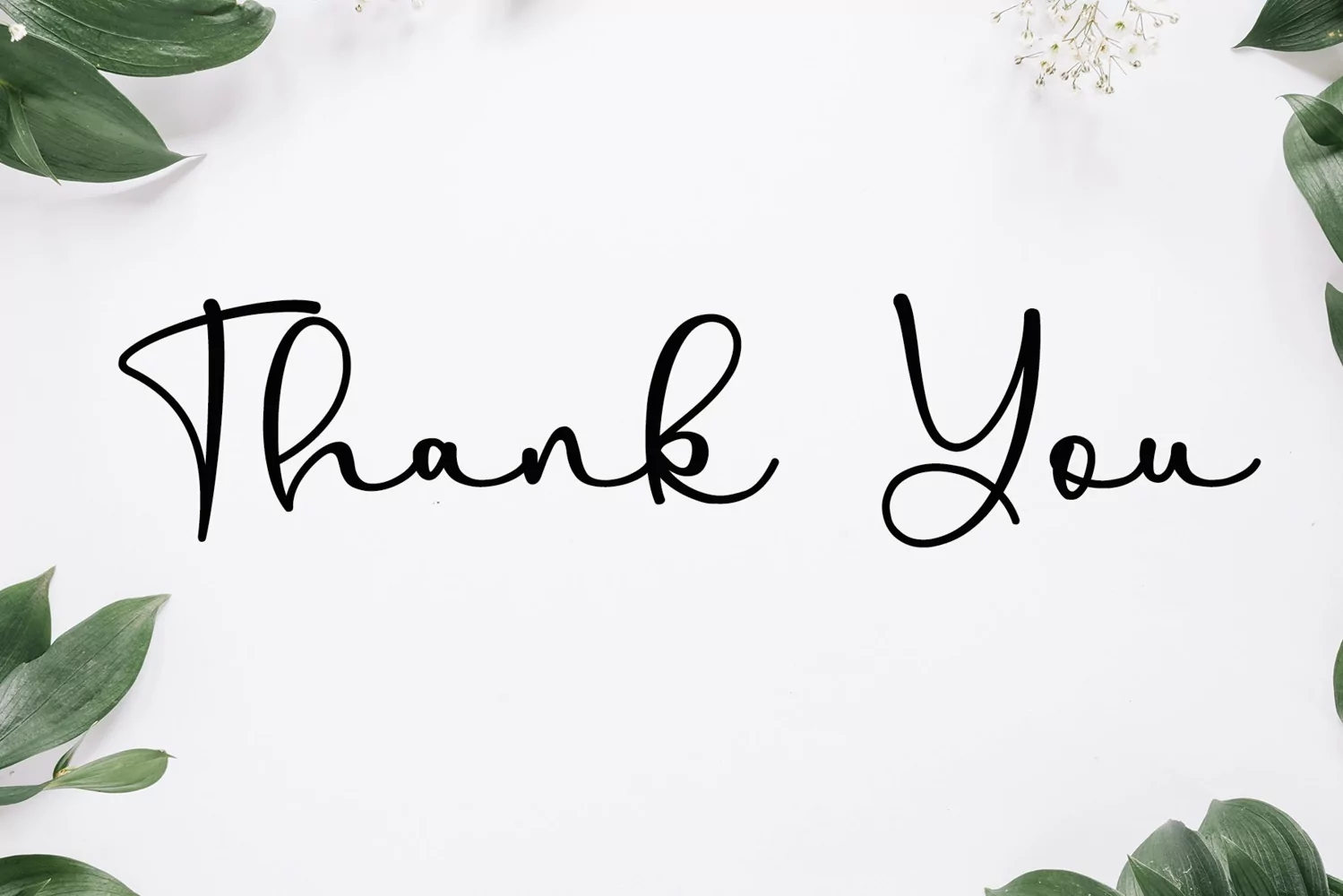
Beautiful Handwritten
Allenisa
Allenisa is a Handwritten Style font by Letterafa Studio. It has flowing letters that will give your designs a unique and sweet look. Allenisa font is perfect; logos, greeting cards, a package design, a brand identity, craft design, any DIY project, book title, wedding invitation, packaging, and more.
- Basic Uppercase and Lowercase
- Swashes
- Ligature
- Number and Punctuation